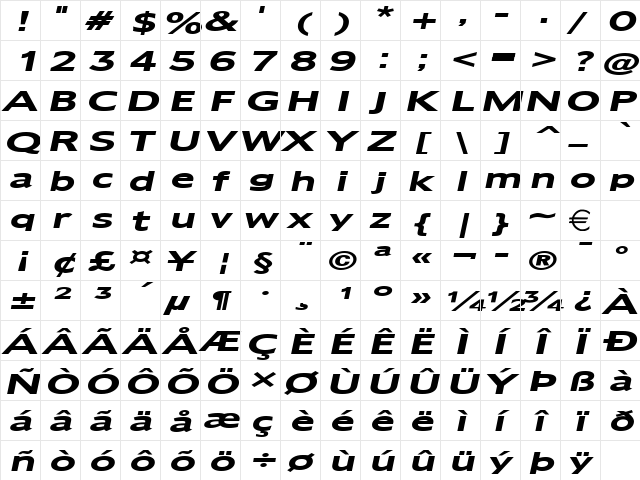
AdamsExtended BoldItalic
Design Context for AdamsExtended Typeface
AdamsExtended is a composed and adaptable typeface that performs quietly and consistently across a wide range of design contexts. Its italic angle brings a sense of urgency and motion to the letterforms. Its bold stroke weight gives it real presence on the page.
Pro Tip: Try AdamsExtended for annotation and caption copy alongside an upright companion — the contrast in angle creates a dynamic but ordered typographic system.